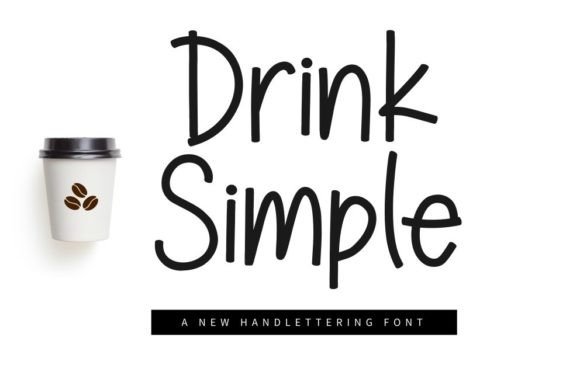
Introducing Simple Drink Font: The Sweet Elegancy For Your Designs!
Immerse yourself in the world of handwritten elegance with Simple Drink Font, a script font crafted to infuse your designs with a touch of charming simplicity. This versatile font, a creation of the talented Goodrichees, offers a wide spectrum of applications, making it an ideal choice for greeting cards, kids' crafts, and any project seeking a dash of heartfelt charm.
Unleash your creativity and let Simple Drink Font dance across your designs, weaving a tapestry of heartfelt emotions. Its effortless flow and delicate strokes evoke a sense of nostalgia, reminiscent of cherished handwritten letters, while its timeless style ensures a sophisticated and polished look that complements any project.
With Simple Drink Font as your creative companion, transform your designs into heartfelt expressions that resonate with your audience. Let its graceful curves and playful spirit elevate your invitations, add a touch of whimsy to your craft projects, and bring warmth to your marketing materials. The possibilities are endless, limited only by your imagination.